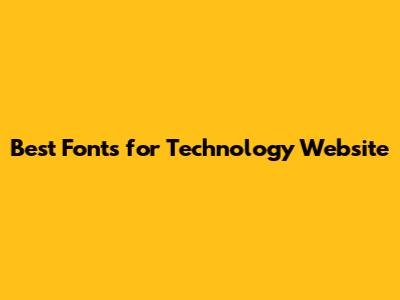
Choosing the right font for your technology website is super important, guys! It's not just about making things look pretty; it's about creating a visual experience that screams professionalism, trust, and innovation. Think of it this way: your font is the voice of your brand, and in the tech world, you want that voice to be clear, confident, and cutting-edge. So, let's dive into the world of fonts and figure out which ones will make your tech website shine!
Why Font Choice Matters for Tech Websites
Font choice is super critical for tech websites because it massively affects how visitors perceive your brand. In the fast-paced tech industry, first impressions are everything. A well-chosen font can instantly convey trust, reliability, and innovation, while a poorly chosen one can make your site look outdated or unprofessional. Think of companies like Apple or Google; their websites use clean, modern fonts that reflect their brand ethos. It’s all about creating a cohesive visual identity that resonates with your target audience. Using the right font improves readability. In the tech world, where information is often complex, using a font that is easy on the eyes ensures visitors can quickly grasp key concepts and engage with your content. Technical content needs to be accessible, and readability plays a huge role in that. The right font helps to highlight important information, making it easier for users to navigate and understand your site. The font you choose can significantly impact user experience (UX). A font that is too small, too ornate, or difficult to read can frustrate visitors and cause them to leave your site. Conversely, a clean, well-spaced font enhances UX by making your site more inviting and easier to use. Consider how fonts work across different devices. Your font should look good on desktops, laptops, tablets, and smartphones. Responsive design is crucial, and your font choice should support it. Test your fonts on various devices to ensure they maintain readability and visual appeal.
Top Font Categories for Technology Websites
When picking fonts for tech websites, there are several categories to consider, each offering a unique vibe. Sans-serif fonts are usually the go-to choice for many tech companies because they look clean, modern, and super easy to read on screens. Think of fonts like Arial, Helvetica, and Open Sans. These fonts are simple and straightforward, which makes them perfect for conveying clarity and efficiency – qualities that are highly valued in the tech world. Serif fonts, on the other hand, have these little decorative strokes at the end of each letter. They often bring a sense of tradition and authority, which can be great if you want to give your tech brand a more established feel. Fonts like Times New Roman or Georgia fall into this category. While they might not be as commonly used as sans-serif fonts for body text on tech websites, they can work really well for headings or logos where you want to make a strong, classic statement. Monospace fonts are where each letter takes up the same amount of horizontal space. These fonts are often associated with coding and programming. Using a monospace font can give your site a techy, coding-focused look, which is perfect if you're targeting developers or showcasing technical documentation. Roboto Mono and Source Code Pro are popular choices. Display fonts are designed to grab attention. They're all about making a statement and can range from bold and quirky to sleek and futuristic. These fonts are best used sparingly for headings, logos, or special design elements where you want to add a unique visual touch. Just make sure they don't overpower the rest of your site or make it hard to read the main content.
Best Sans-Serif Fonts for a Modern Tech Look
For a modern tech look, sans-serif fonts are where it’s at, guys! These fonts are all about clean lines and simplicity, making them super readable and perfect for conveying a sense of modernity and innovation. Helvetica is a classic choice, and for good reason. It’s super versatile and looks great in pretty much any context. Its clean, neutral design makes it easy to read and gives your site a professional vibe. Arial is another super popular option. It’s similar to Helvetica but has a few subtle differences that make it a great alternative. Like Helvetica, it’s clean, simple, and works well for body text and headings alike. Open Sans is designed with readability in mind. It's got a friendly, open look that makes it easy on the eyes, even for long blocks of text. This font is a solid choice if you want your site to feel approachable and user-friendly. Roboto is a modern sans-serif font that Google developed. It’s super versatile and looks great on all sorts of devices and screen sizes. Its clean lines and geometric shapes give it a contemporary feel, perfect for a tech website. Lato is known for its semi-rounded details, which give it a warm and friendly vibe. It's super readable and works well for both headings and body text. If you want a font that's both modern and approachable, Lato is a great pick. When choosing a sans-serif font, think about the overall vibe you want to create. Do you want something super sleek and modern, or a font that's a bit more friendly and approachable? Also, make sure to test your font on different devices and screen sizes to make sure it looks good across the board. Readability is key, so pick a font that's easy on the eyes, even for long stretches of text.
Serif Fonts: Adding a Touch of Tradition to Tech
Serif fonts can bring a touch of tradition and authority to your tech website, creating a unique blend of classic and modern vibes. While they might not be the go-to choice for body text, they can work wonders for headings, logos, or other design elements where you want to make a strong statement. Times New Roman is a classic serif font that's been around forever. It has a super traditional look that can add a sense of history and authority to your site. While it might not be the most cutting-edge choice, it can work well if you want to convey a sense of establishment. Georgia is another popular serif font that's designed to be super readable on screens. It has a slightly warmer and more modern feel than Times New Roman, making it a great option if you want a font that's both classic and approachable. Merriweather is designed specifically for on-screen reading. It features a large x-height and slightly condensed letterforms, making it super readable even at smaller sizes. This font is a solid choice if you want a serif font that's optimized for digital use. Playfair Display is an elegant serif font that's perfect for headings and titles. It has a high-contrast design and delicate serifs, giving it a sophisticated and refined look. If you want to add a touch of luxury to your tech website, Playfair Display is a great option. When using serif fonts on a tech website, it's important to use them strategically. Too much serif text can make your site look cluttered or outdated. Instead, consider using serif fonts sparingly for headings, logos, or other design elements where you want to make a statement. Combine them with clean sans-serif fonts for body text to create a balanced and visually appealing design. Also, make sure to test your fonts on different devices and screen sizes to ensure they look good across the board. Readability is still key, even with serif fonts, so pick fonts that are easy on the eyes and don't strain the reader.
Monospace Fonts: Perfect for Code and Technical Documentation
Monospace fonts are like the unsung heroes of the tech world, guys! If you're dealing with code, technical documentation, or anything that needs to look super precise and consistent, these fonts are your best friends. They're designed so that each letter and character takes up exactly the same amount of horizontal space, which makes everything line up perfectly. This is super important for code because even a tiny alignment issue can cause major problems. Courier New is a classic monospace font that's been around for ages. It’s super straightforward and easy to read, which makes it a solid choice for displaying code snippets or technical information. Plus, it's widely available, so you can be sure that most people will be able to see it correctly. Roboto Mono is a modern take on the monospace font. It’s part of the Roboto family, which is known for its clean and versatile design. Roboto Mono has a more contemporary feel than Courier New, making it a great option if you want something that looks up-to-date. Source Code Pro is specifically designed for coding. It’s got a clean, minimalist design that makes it super easy to distinguish between different characters, which is crucial when you're staring at lines of code all day. This font is a favorite among developers for its readability and clarity. Fira Code is super cool because it includes ligatures, which are special characters that combine two or more letters into a single symbol. This can make code much easier to read and understand, especially when you're dealing with complex syntax. Plus, it just looks awesome! When using monospace fonts, remember that they're not always the best choice for regular body text. Their uniform spacing can make them look a bit clunky and hard to read in large blocks. Instead, save them for code snippets, technical documentation, or other areas where precise alignment is key. Also, make sure to choose a font that's easy on the eyes, especially if people will be staring at it for long periods of time.
Display Fonts: Adding Personality to Your Tech Brand
Display fonts are all about adding that extra zing to your tech brand, guys! They're the fonts you use when you want to make a statement, grab attention, and inject some personality into your website. Think of them as the fashion accessories of the font world – they can really elevate your look, but you've gotta use them wisely. Bebas Neue is a super popular display font that's known for its clean, tall, and condensed design. It's perfect for headings and titles where you want to make a bold statement. Its modern and geometric look makes it a great fit for tech websites. Montserrat is a versatile font that works well as both a display font and a body text font. It has a clean, geometric design with a slightly vintage vibe. This font is a solid choice if you want something that's both modern and timeless. Oswald is designed for digital screens. It's got a slightly condensed design and bold weight, making it super readable and eye-catching. This font is perfect for headings, banners, and other design elements where you want to grab attention. Raleway is an elegant and sophisticated display font that's perfect for adding a touch of class to your tech website. It has a thin, delicate design with a slightly vintage feel. Use it sparingly for headings or logos where you want to make a refined statement. When using display fonts, the key is to use them sparingly. Too much can be overwhelming and make your site look cluttered. Instead, focus on using them for headings, logos, or other design elements where you want to make a statement. Also, make sure to choose a font that complements your brand's personality and overall design aesthetic. A font that's too quirky or out-there can clash with your brand and turn visitors off. Finally, always prioritize readability. Even if a font looks super cool, it's not worth using if it's hard to read. Test your fonts on different devices and screen sizes to make sure they look good across the board. A great display font should enhance your site's design, not detract from it.
Font Pairing: Creating Harmonious Typography
Font pairing is the art of combining different fonts to create a visually appealing and harmonious design. When done right, it can elevate your tech website, making it look polished and professional. But when done wrong, it can be a disaster, making your site look cluttered and confusing. The key is to choose fonts that complement each other, rather than compete. Start by choosing a primary font for your body text. This should be a font that's super readable and easy on the eyes, even for long blocks of text. Then, choose a secondary font for your headings, subheadings, and other design elements. This font can be a bit more decorative or eye-catching, but it should still complement your primary font. A classic combo is pairing a sans-serif font with a serif font. For example, you could pair Open Sans (a clean sans-serif font) with Merriweather (a readable serif font). This creates a nice contrast that's easy on the eyes. Another great option is pairing different weights and styles of the same font family. For example, you could use Roboto for your body text and Roboto Bold for your headings. This creates a cohesive look that's easy to read and visually appealing. When pairing fonts, pay attention to the overall tone and vibe you want to create. Do you want something that's modern and minimalist, or something that's more traditional and sophisticated? Choose fonts that reflect your brand's personality and target audience. Also, don't be afraid to experiment and try out different combinations. There are tons of great font pairing resources online that can give you inspiration and ideas. Tools like FontPair can be super helpful for finding fonts that work well together. Ultimately, the best way to find the perfect font pairing is to play around and see what works best for your website. Trust your instincts and choose fonts that you think look great together. And most importantly, always prioritize readability. No matter how beautiful your fonts are, they're not worth using if they're hard to read.
Tools and Resources for Choosing the Right Fonts
Choosing the right fonts can feel like a daunting task, but don't worry, guys! There are tons of amazing tools and resources out there to help you find the perfect fonts for your tech website. Google Fonts is a goldmine of free, open-source fonts that you can use on your website. It offers a wide variety of fonts in different styles and weights, and it's super easy to integrate them into your site. Plus, Google Fonts are optimized for web use, so you can be sure they'll look good on any device. Adobe Fonts (formerly Typekit) is a subscription-based service that gives you access to thousands of high-quality fonts. It offers a wide range of fonts from top-notch foundries, and it's a great option if you're looking for something a bit more premium. Adobe Fonts also integrates seamlessly with Adobe Creative Cloud apps, so you can easily use them in your design projects. FontPair is a super handy tool that helps you find font pairings that work well together. It offers a curated selection of font combinations, and you can easily preview them on your website. This is a great resource if you're struggling to find fonts that complement each other. Typewolf is a website that showcases examples of great typography in the wild. It features real-world websites that use fonts effectively, and it's a great source of inspiration for your own projects. Typewolf also offers font recommendations and tips for improving your typography skills. Canva Font Combinations Canva is a popular design tool that also offers a great resource for font combinations. They have a curated list of font pairings that you can use in your designs, along with tips for choosing the right fonts for your project. When using these tools and resources, remember to consider your brand's personality, target audience, and overall design aesthetic. Choose fonts that reflect your brand and resonate with your audience. And most importantly, always prioritize readability. No matter how beautiful your fonts are, they're not worth using if they're hard to read. So, take your time, explore your options, and have fun finding the perfect fonts for your tech website!